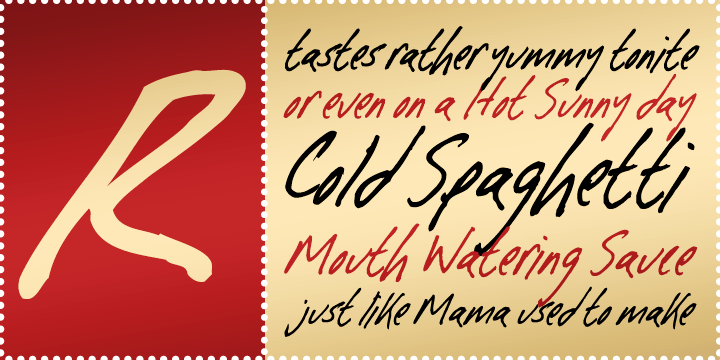
Cold Spaghetti BTN
About Cold Spaghetti BTN
Cold Spaghetti so called in tribute to the ?Down Under? children\’s group the Wiggles, but was created in a style affectionatey referred to as chicken scratch due to its rushed and tall, skinny letters which appear as though they\’d been created by an angry…